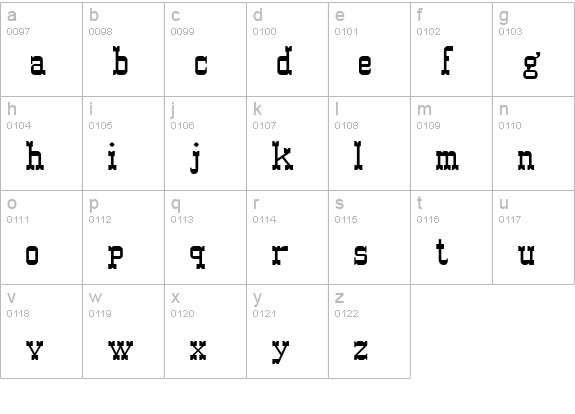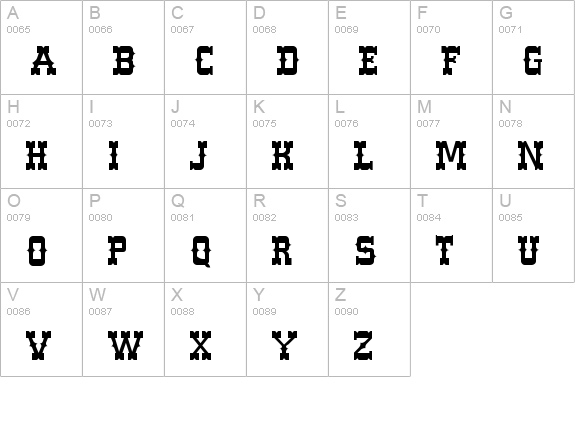
Western Normal Font Details
Western Normal is the standard, neutral variant in the Western typeface family \xE2\x80\x94 well suited to general body text, paragraphs, and standard typographic work.
The Western Normal font is a timeless typeface that effortlessly captures the essence of the Wild West. With its bold and rugged letterforms, this font brings to life the spirit of adventure, freedom, and untamed beauty of the American frontier. It is the perfect choice for any project that requires a rustic and authentic touch. Featuring clean lines and a balanced weight, Western Normal offers excellent legibility and readability, making it suitable for a wide range of applications. Whether you're designing a vintage-inspired poster, creating eye-catching headlines, or adding a touch of nostalgia to your branding, this font will surely make a lasting impression. One of the greatest advantages of the Western Normal font is that it is freely available to download at FontsMarket.com. This means that you can effortlessly add this stunning typeface to your design toolkit without any cost. With its free availability, Western Normal allows you to explore and unleash your creativity without any limitations. So, if you're looking for a versatile and visually striking font that embodies the spirit of the Wild West, look no further than Western Normal. Download this font today from FontsMarket.com and embark on a design journey that captures the untamed beauty of the American frontier.